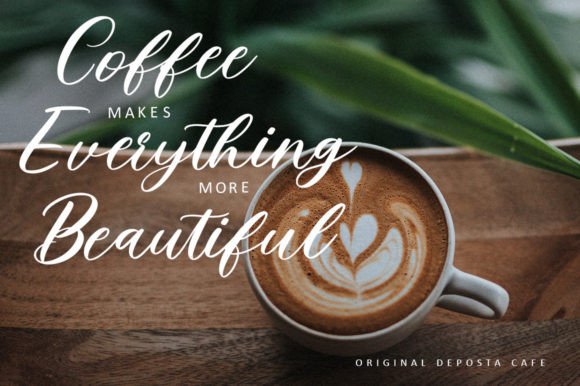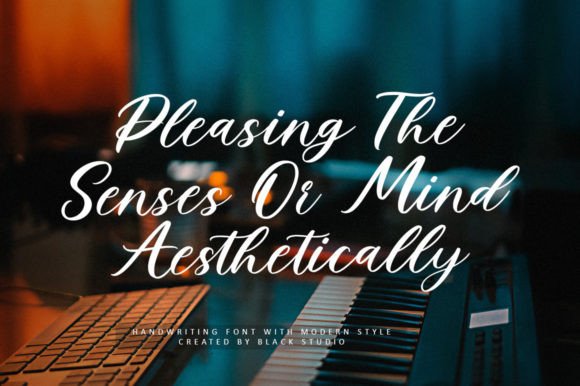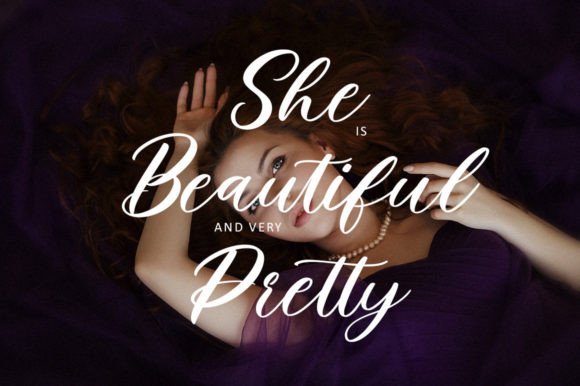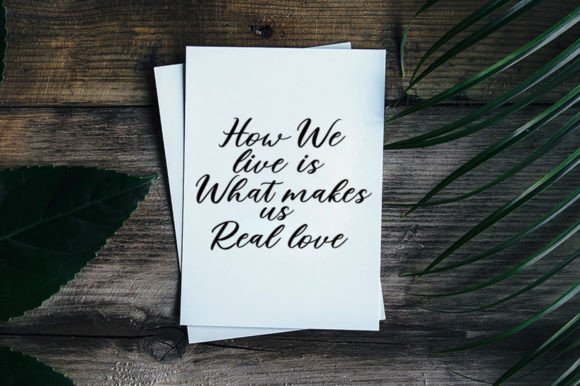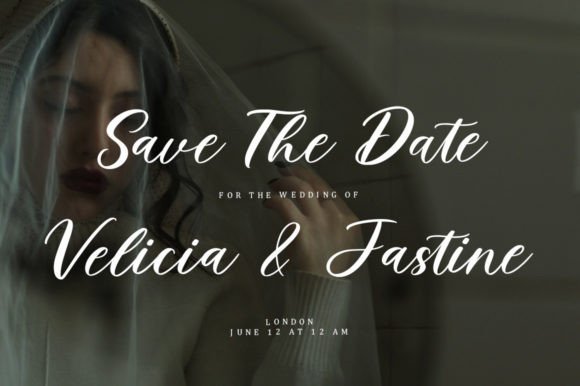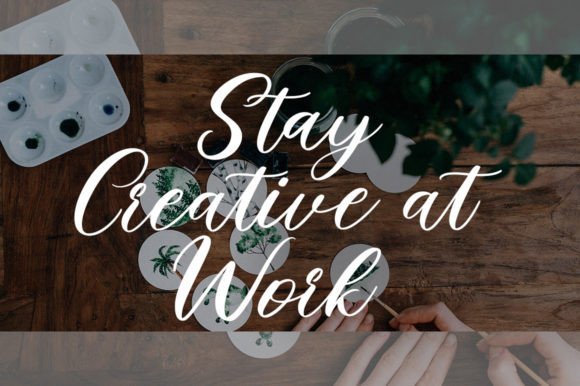
Introducing Deposta Font: Elevate Your Typography with Elegance and Whimsy
In the world of typography, a font can make all the difference in conveying the right message and setting the tone for your design. If you’re a designer, crafty DIY enthusiast, or simply someone who appreciates beautiful handwriting, you’re in luck. Meet Deposta Font, a very fun yet elegant script font that is packed with energy and ready to transform your text into stunning, handcrafted masterpieces instantly.
The Unique Charm of Deposta
Deposta stands out from the crowd with its extra curves and twists, ensuring that your text doesn’t just blend in but truly stands out. Whether you’re working on logos, printed quotes, invitations, cards, product packaging, headers, wedding materials, or any other creative project, Deposta is your perfect companion. Its unique design doesn’t just add a touch of elegance; it infuses your work with a lively spirit that’s hard to ignore.
The Versatility of Deposta
What makes Deposta incredibly versatile is its extensive feature set. One of its standout features is the complete set of lowercase alternatives. This allows you to create text that feels custom-made and authentic, adding a personal touch to your designs that can engage and resonate with your audience on a deeper level. The ability to mix and match different letters gives you the creative freedom to experiment with various styles and tones, making your work truly one-of-a-kind.
Practical Applications of Deposta Font
Deposta’s applications are as varied as your imagination. Here are a few ideas to get you started:
- Logos and Branding: Create a memorable logo that captures the essence of your brand with a distinctive and elegant touch.
- Weddings and Invitations: Add a touch of class and romance to your wedding invitations, menus, and decorations.
- Product Packaging: Stand out on the shelves with beautifully designed packaging that tells your brand’s story.
- Social Media and Blogs: Elevate your digital content with custom typography that reflects your personal or brand style.
- Art and Craft Projects: Perfect for handmade cards, scrapbooking, and other craft projects where a personal touch matters.
Why Choose Deposta?
Choosing Deposta for your typography needs comes with numerous benefits:
- Ease of Use: Despite its elegant look, Deposta is incredibly easy to use, suitable for both beginners and experienced designers.
- High Readability: Its clear and flowing script ensures that your message is conveyed effectively without sacrificing style.
- Customization: The inclusion of lowercase alternatives allows for a high degree of customization to fit your project’s tone and style.
Deposta Font is more than just a script font; it’s a tool that unlocks a world of creative possibilities. With its elegant yet fun design, extensive features, and wide range of applications, Deposta is set to become your go-to choice for projects that demand a little extra flair. Say goodbye to ordinary typography and hello to beautifully handcrafted text that captures attention and leaves a lasting impression.